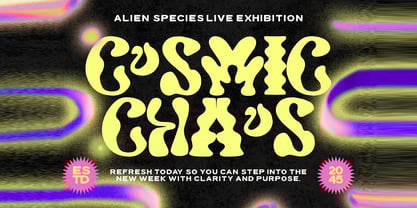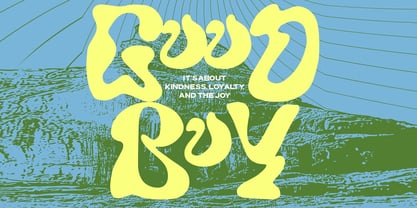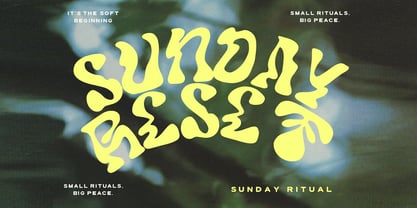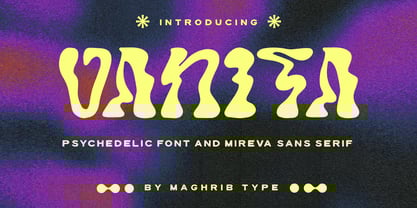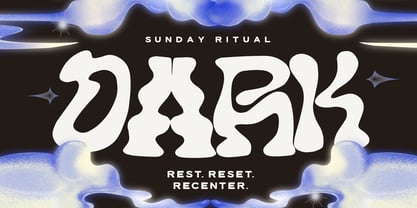
Vanita Psyc
by Maghrib Type
The Vanita Psyc Font Family was designed by Rizky Setyaludin and published by Maghrib Type. Vanita Psyc contains 2 styles and family package options.
Vanita Psyc, a psychedelic typeface that feels like it time-traveled straight from the 70s—then got upgraded with a bold, modern twist. The letters are fluid, organic, and wildly expressive, like shapes melting into each other but still totally readable and irresistibly aesthetic. Perfect for designs that need something weird in the coolest way possible—from music posters and indie branding to artsy editorials and scroll-stopping social media visuals. What makes it even better? Vanita Psyc comes in two styles: Vanita Psyc — the main show: quirky curves, liquid movement, and statement-making shapes. Bold, experimental, unforgettable. Vanita Psyc Sans Serif — the clean and minimal companion font. Sleek, readable, and perfect for supporting text, captions, or layouts that need balance. Together, they’re the perfect contrast—wild chaos meets structure. Vanita Psyc isn’t just a font—it’s a mood, a visual attitude, a design universe. If you love experimental typography, dreamy gradients, cosmic visuals, or bold retro energy, this typeface is your new obsession.
Designers: Rizky Setyaludin
Publisher: Maghrib Type
Foundry: Maghrib Type
Design Owner: Maghrib Type